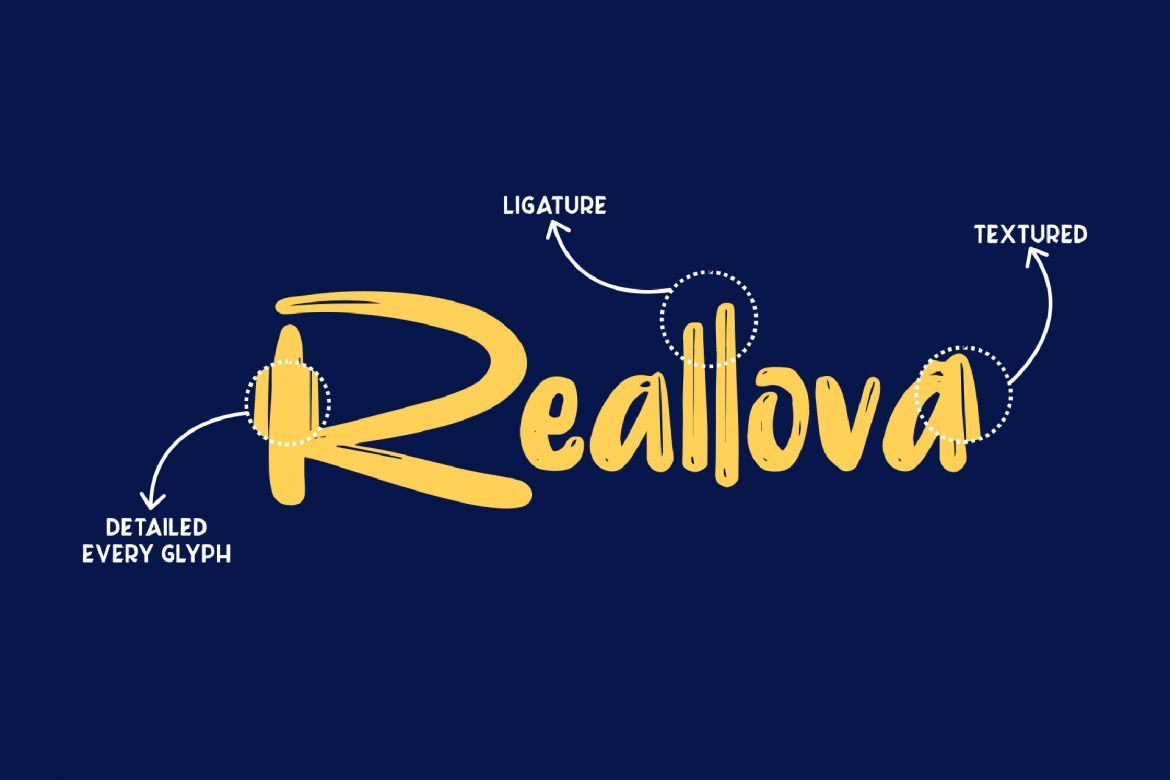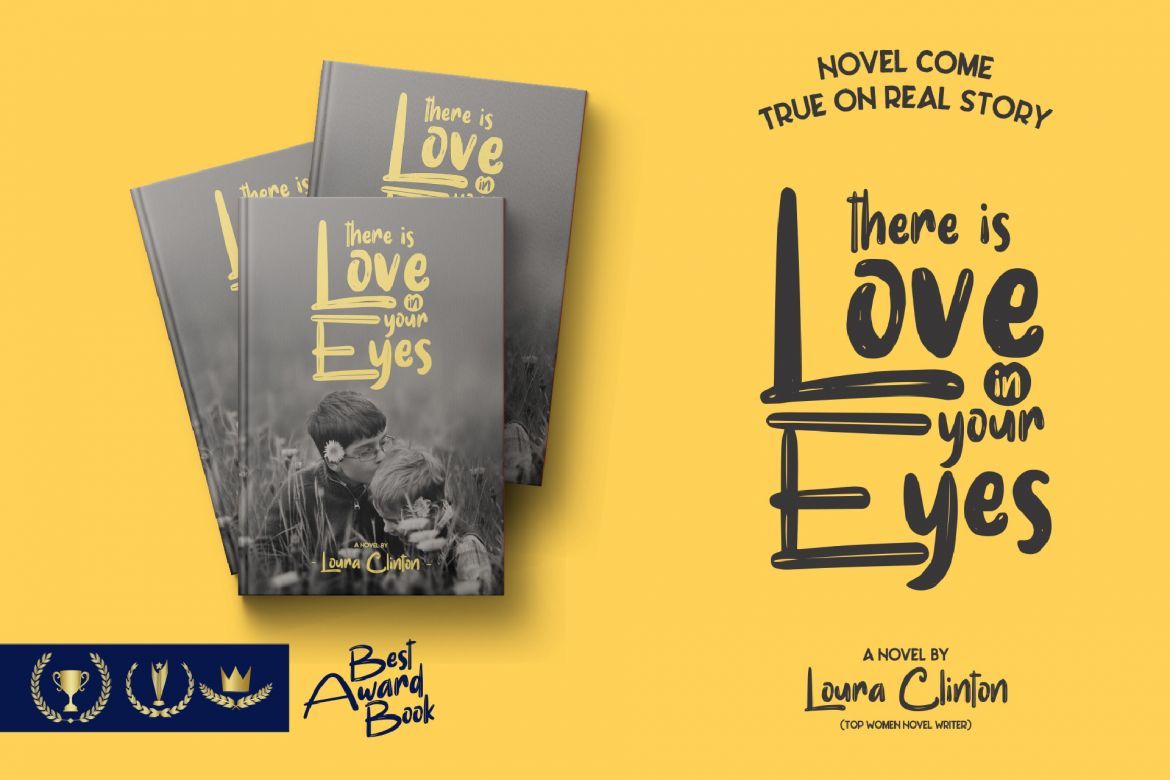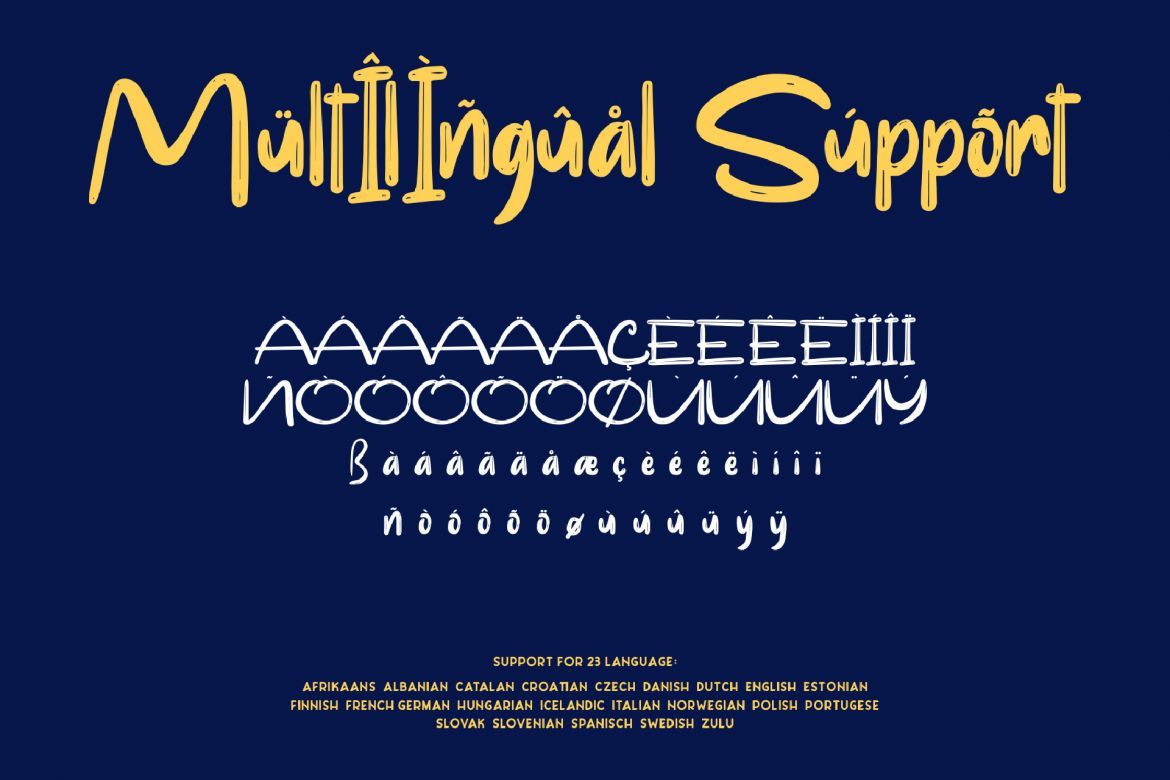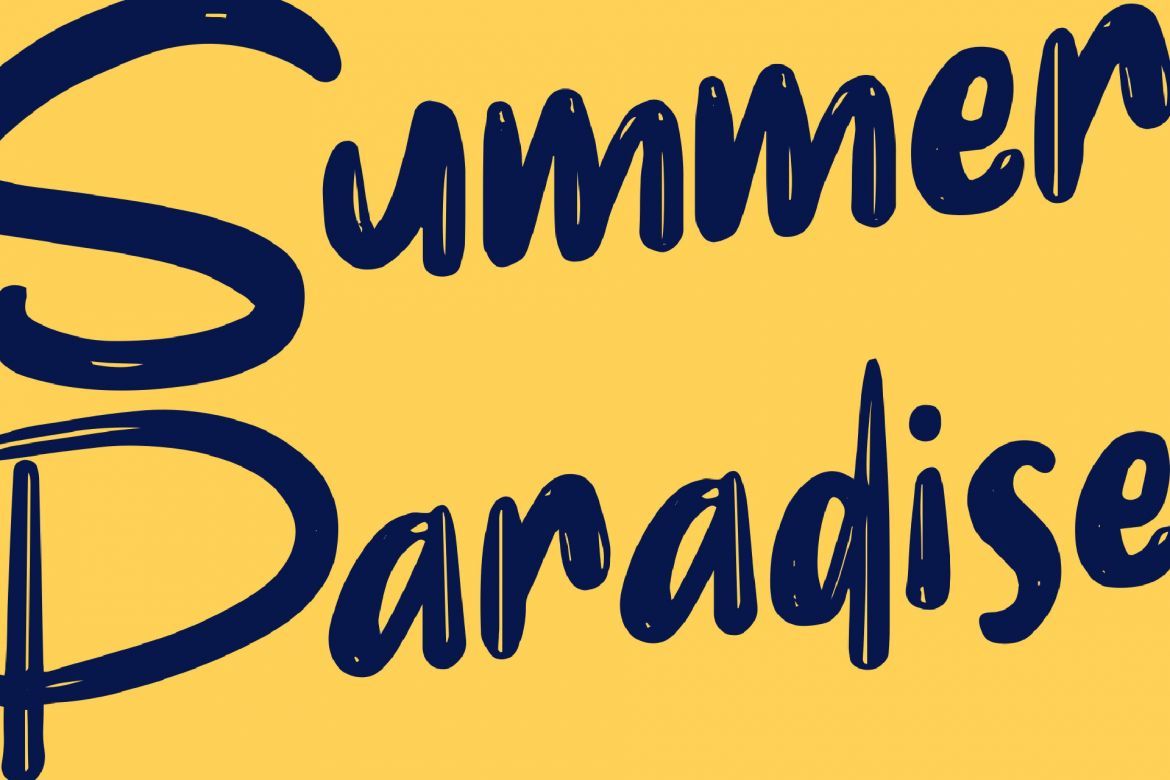
Reallova Handwritten Font
That's REALLOVA
Come to The name Reallova comes and comes to give true love. Love your great work. With a touch font display, Reallova provides a bold touch, fun and a little with a brush effect that will add a natural love for your design. This font is very suitable to be used as a book title, typography design, poster, quote, shirt design, logo type, template, banner, flyer, headline title, and many more.
• mültîlìñgûål súppõrt (23 languages)